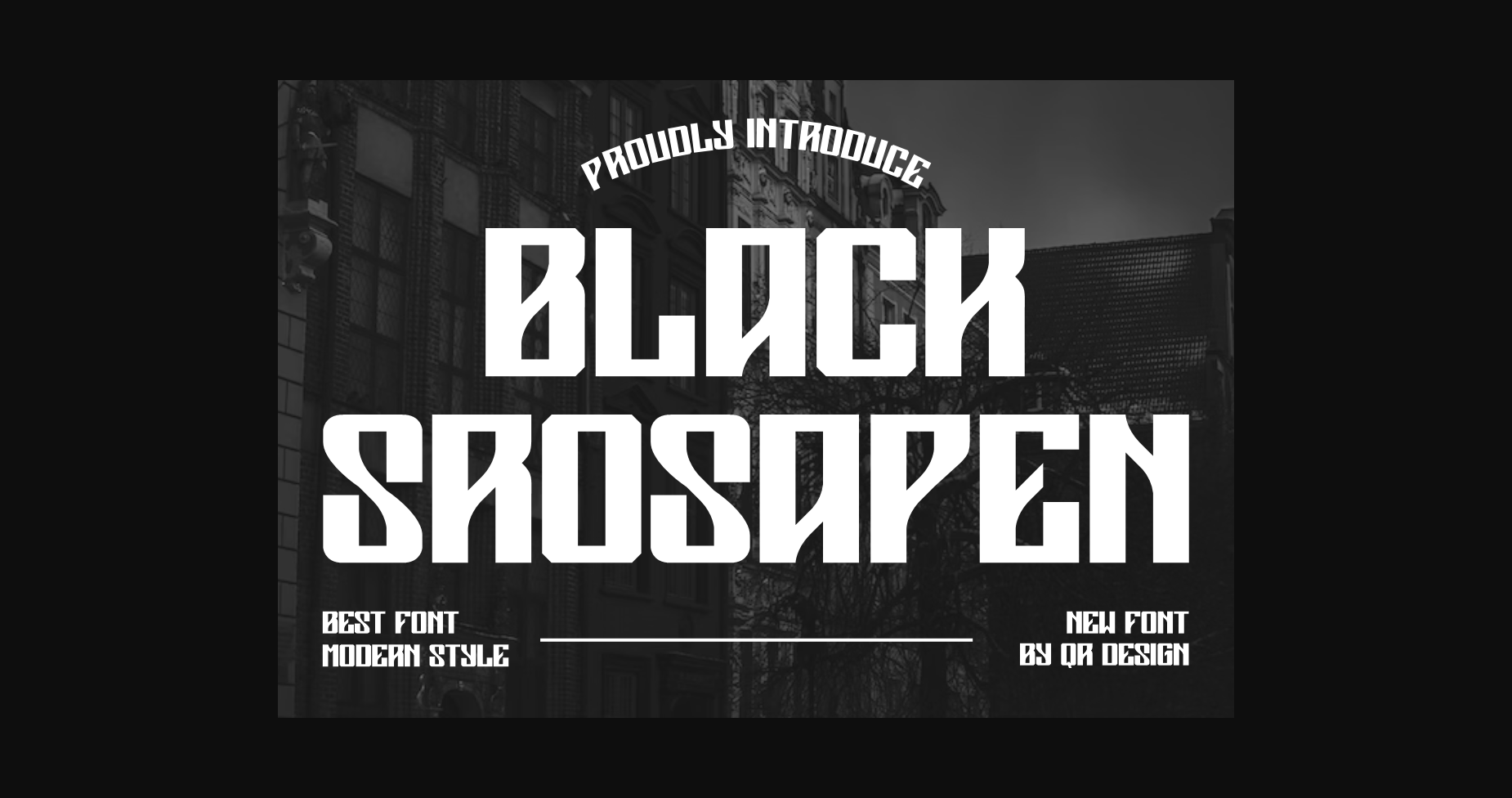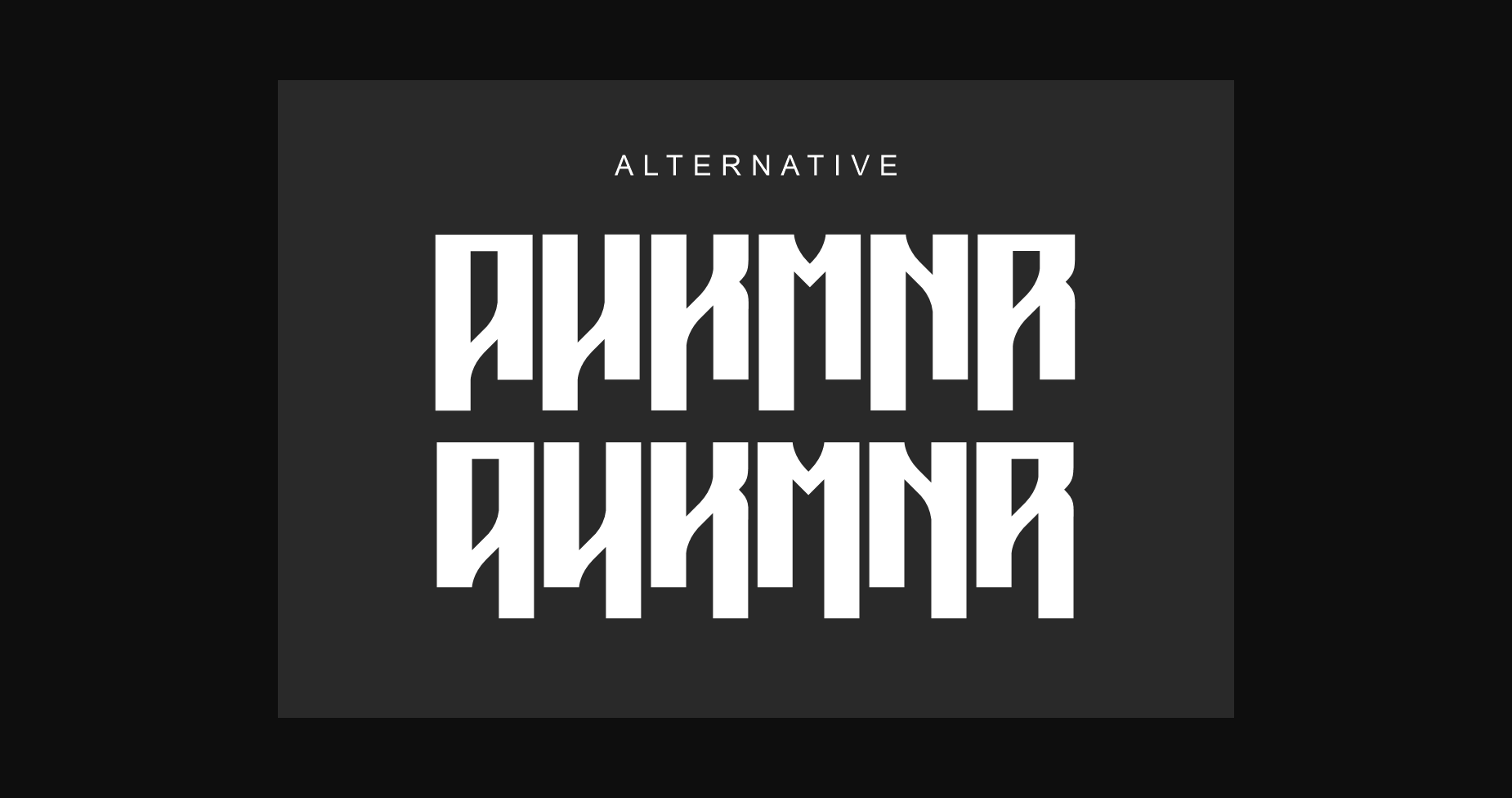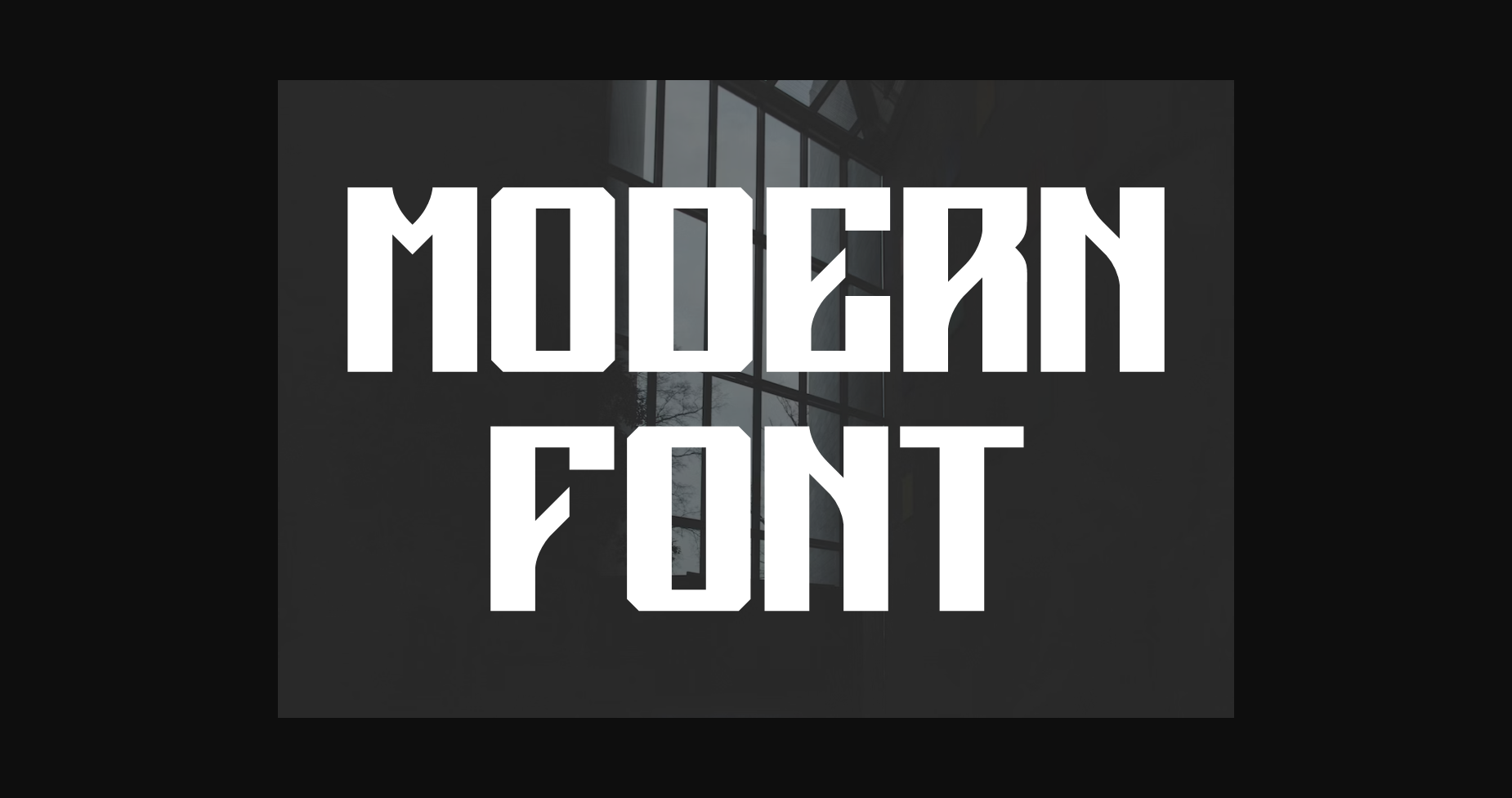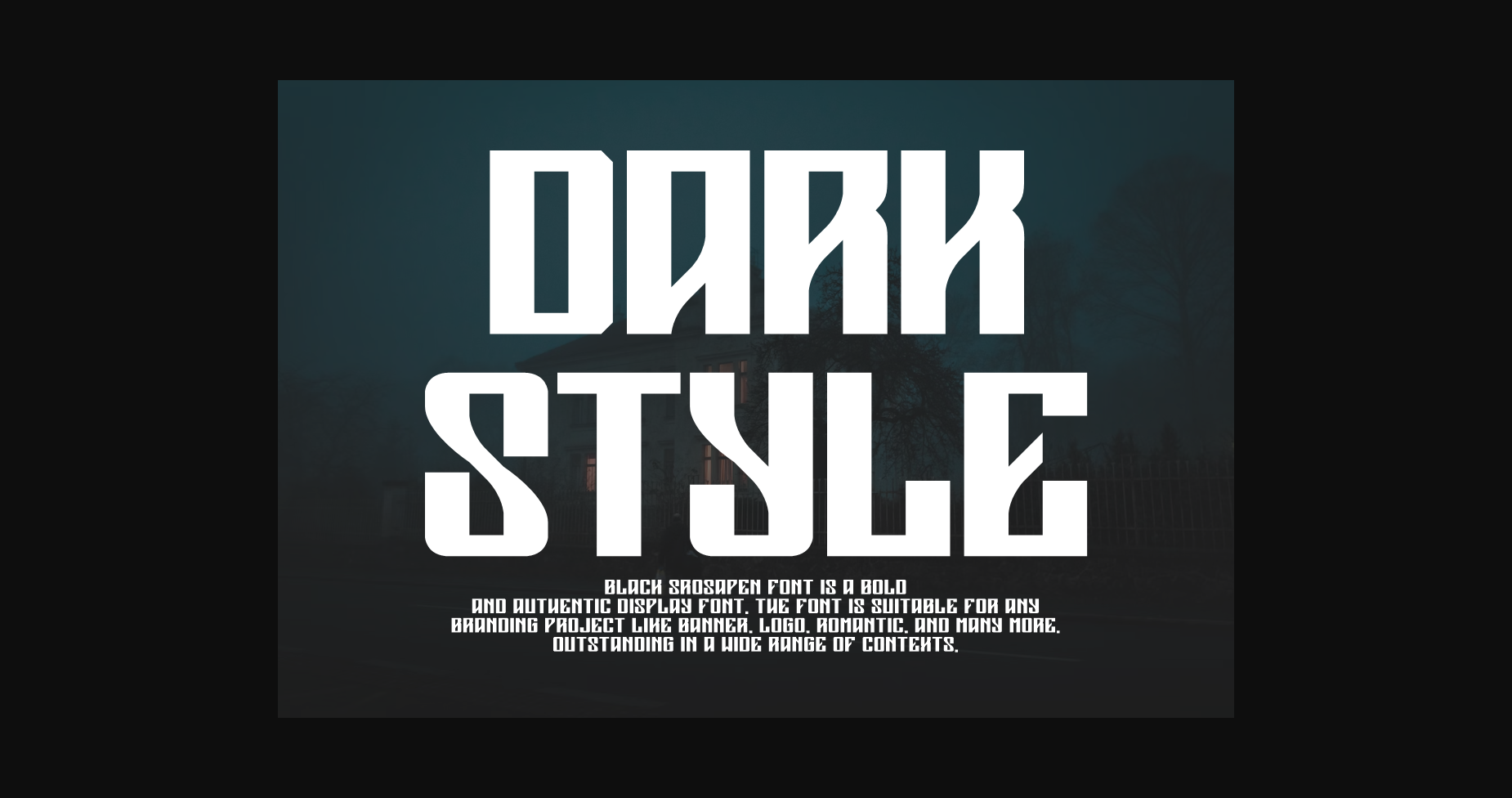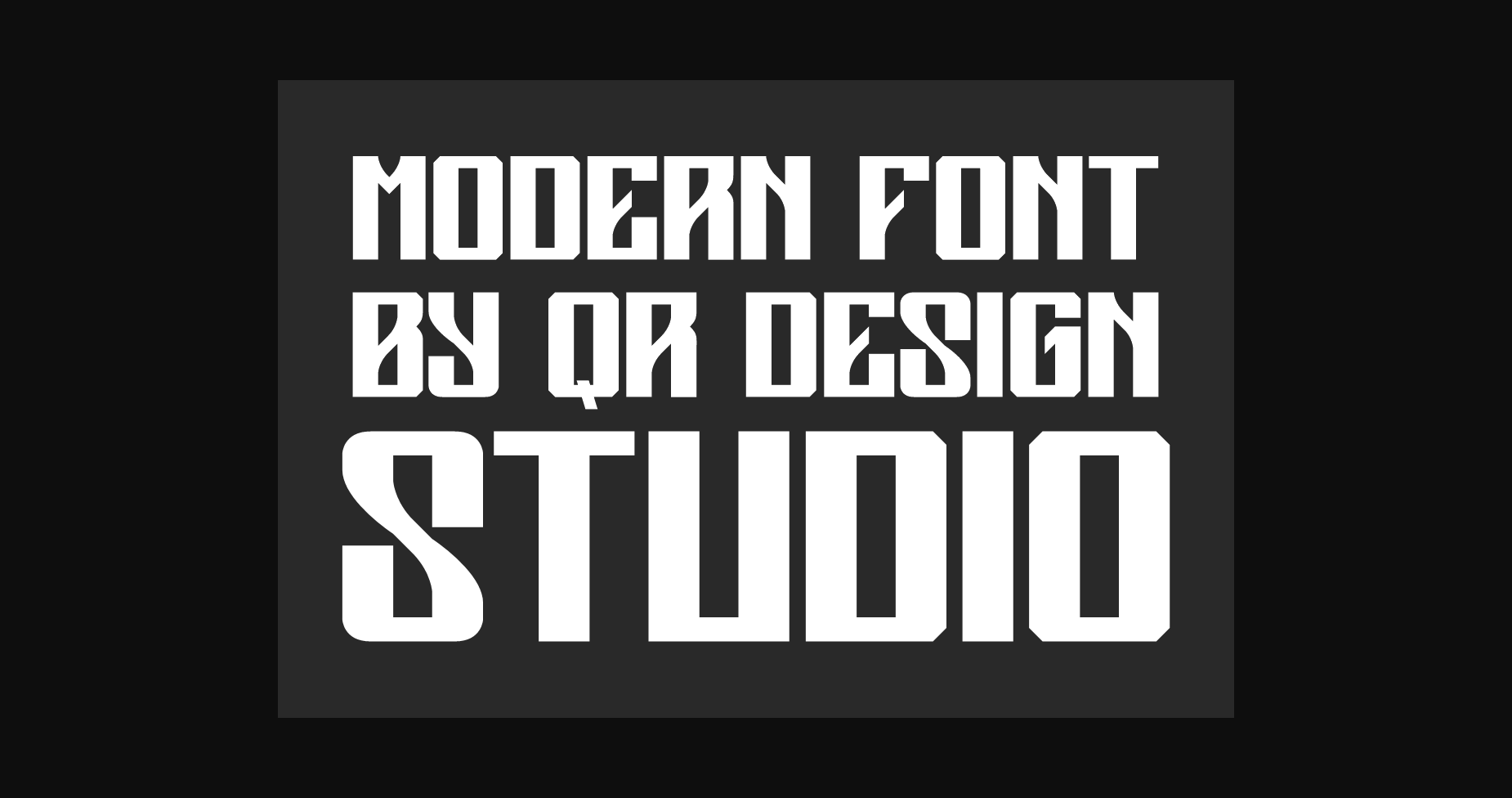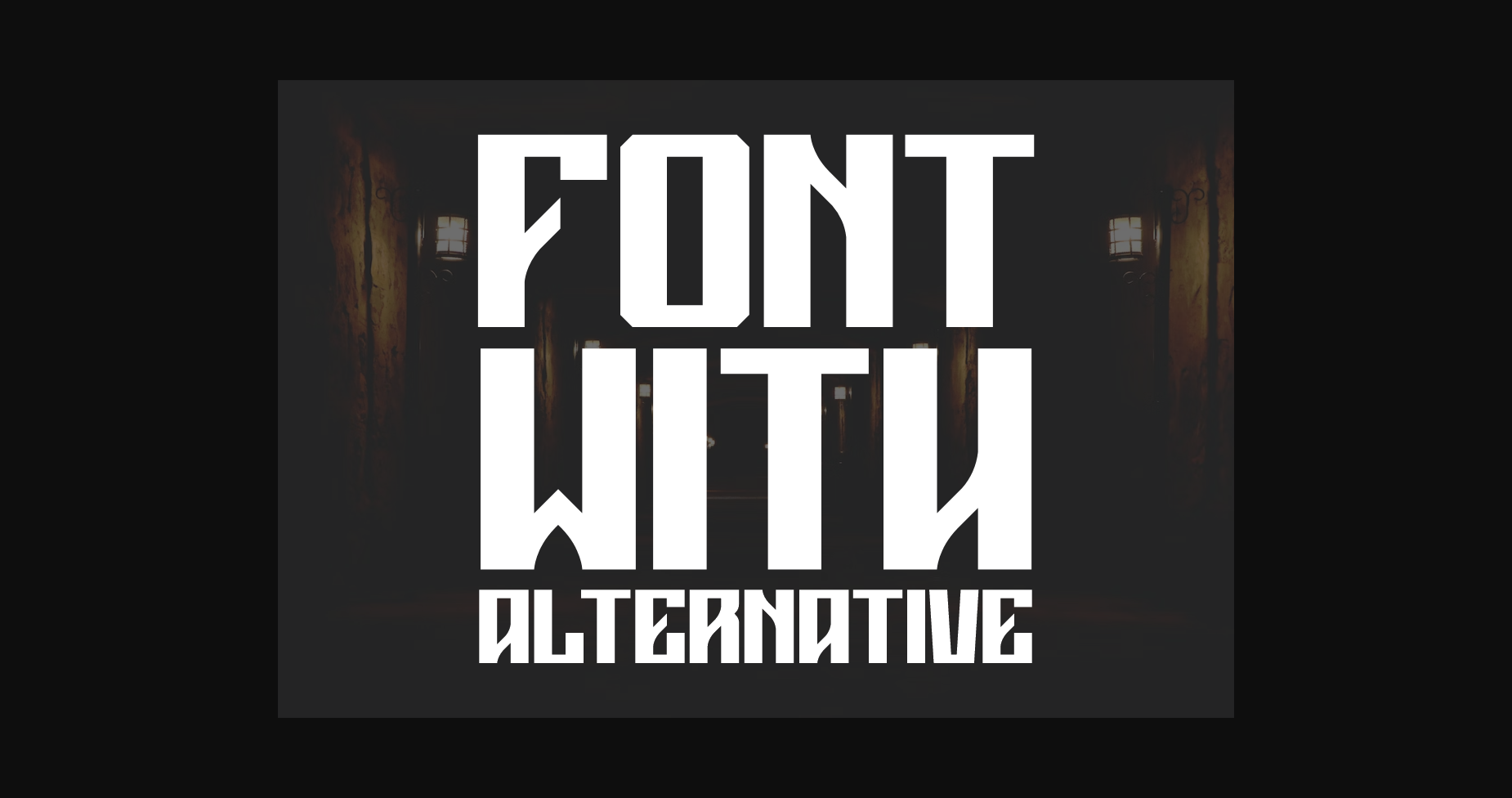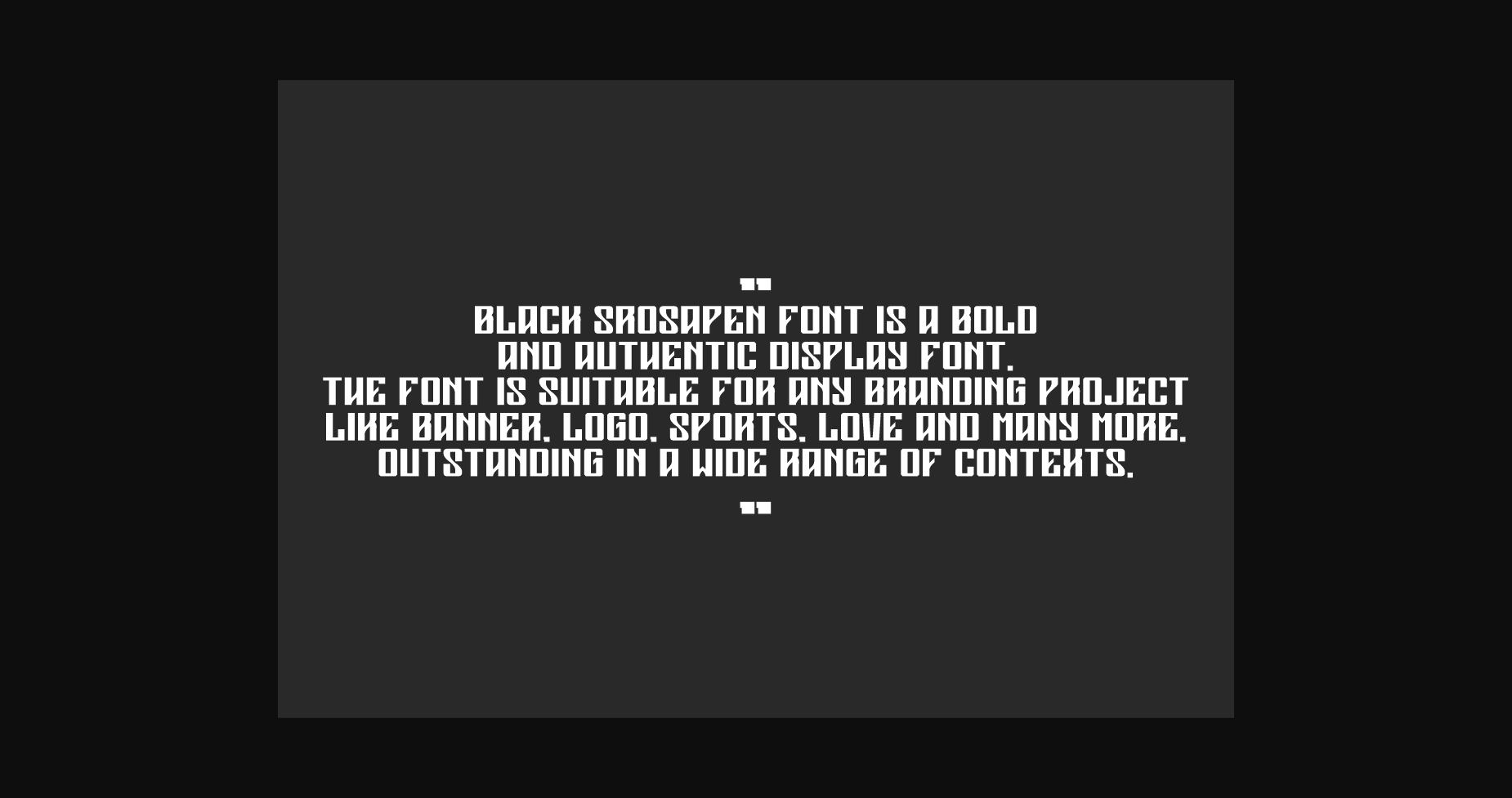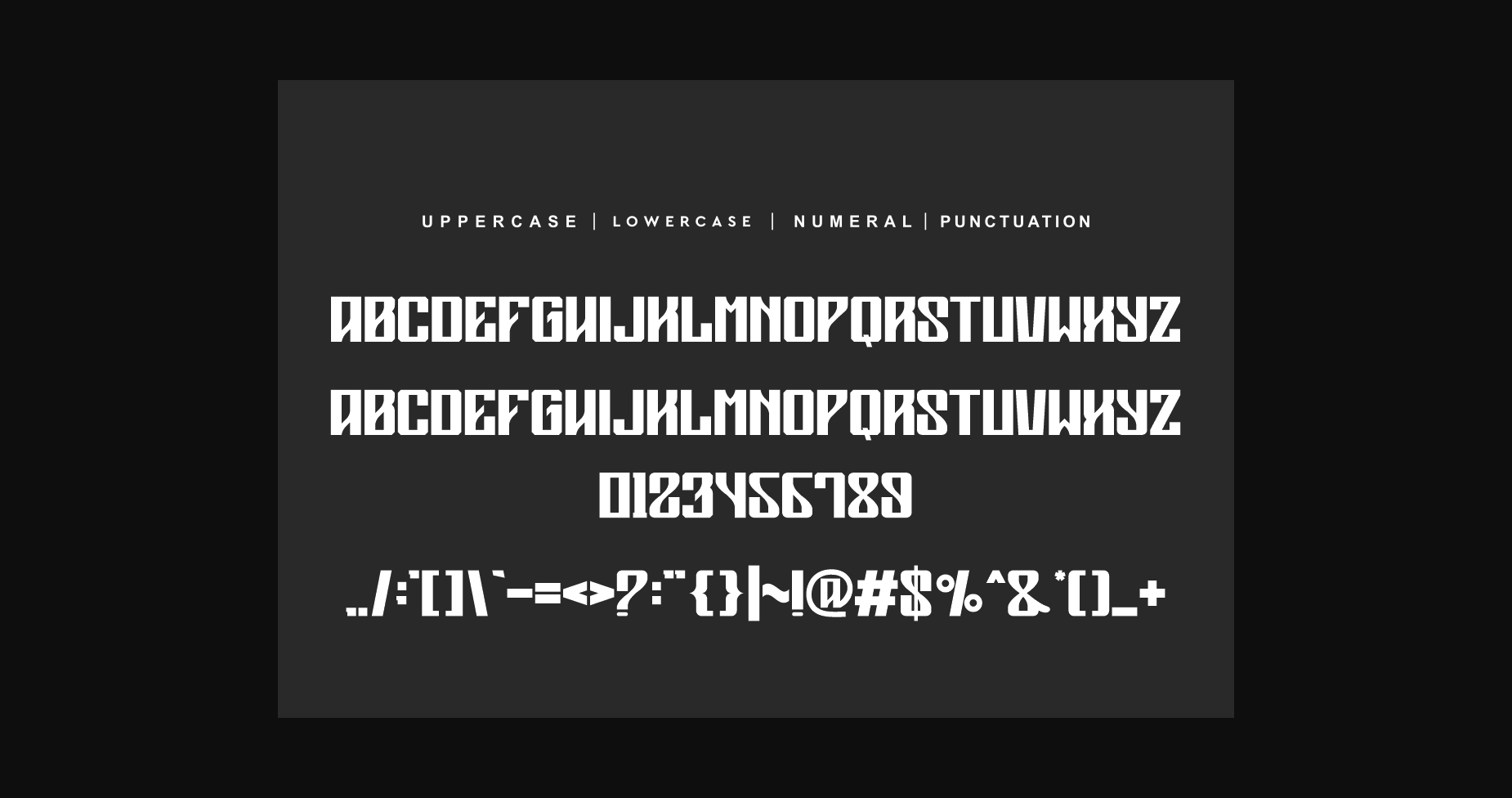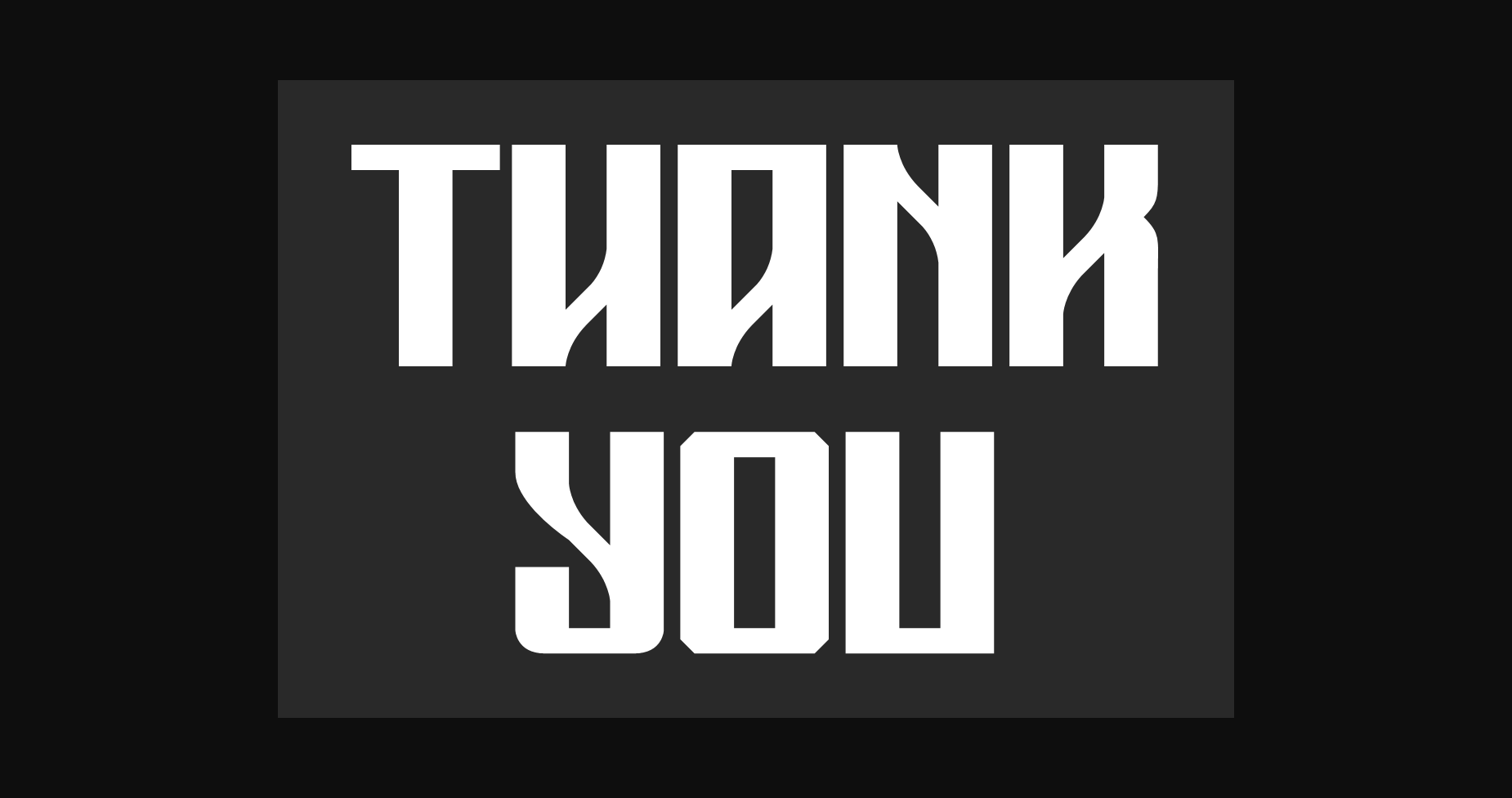
Black Srosapen Font
Black Srosapen Font is a bold and authentic display font.
The font is suitable for any branding project like logos, sports, and many more.